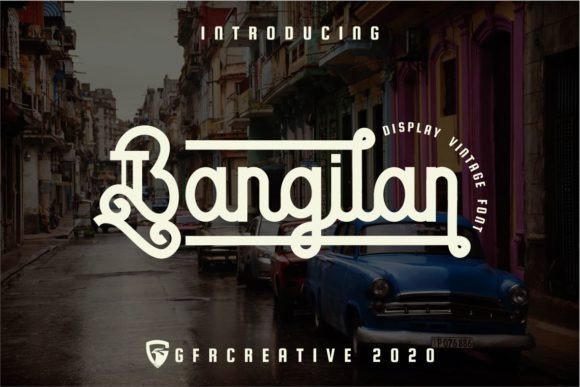
Bangilan Font
Bangilan Display Font is a bold monoline Display typeface created by GFR Creative, that inspired by the old advertising posters, It is perfect for product logo, signage, branding projects, headlines, posters, packaging, clothing brand logos, Vintage design and much more.